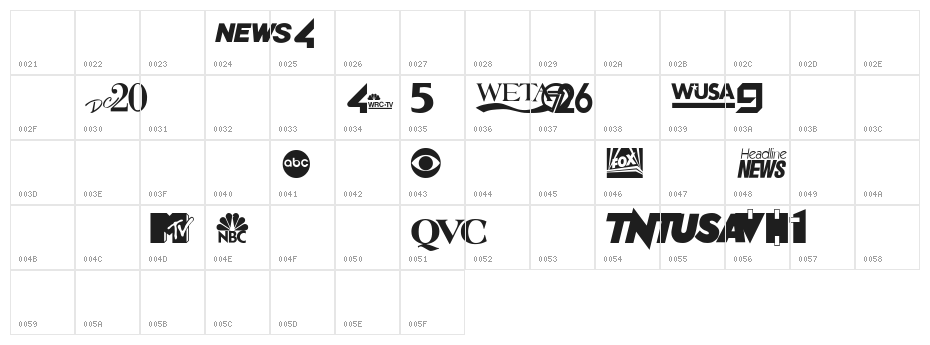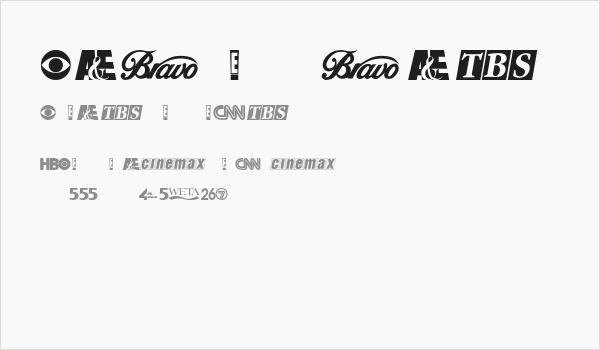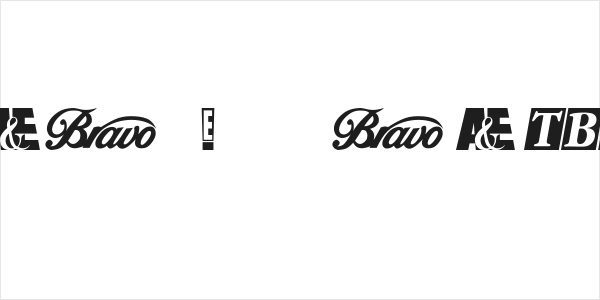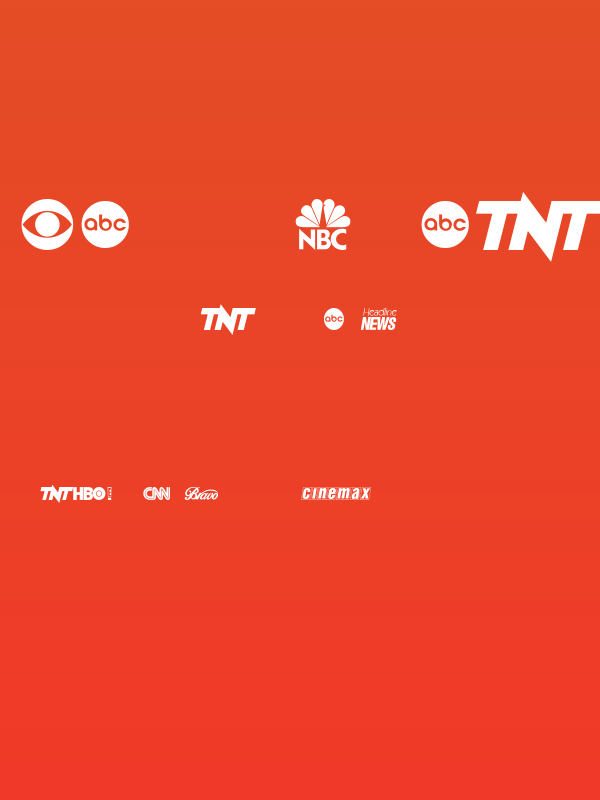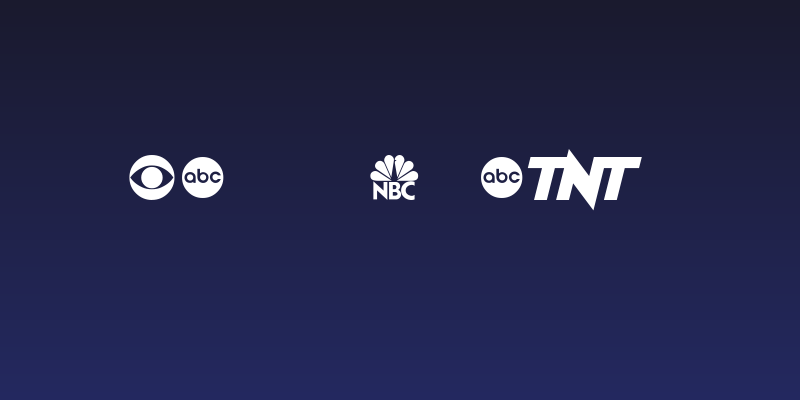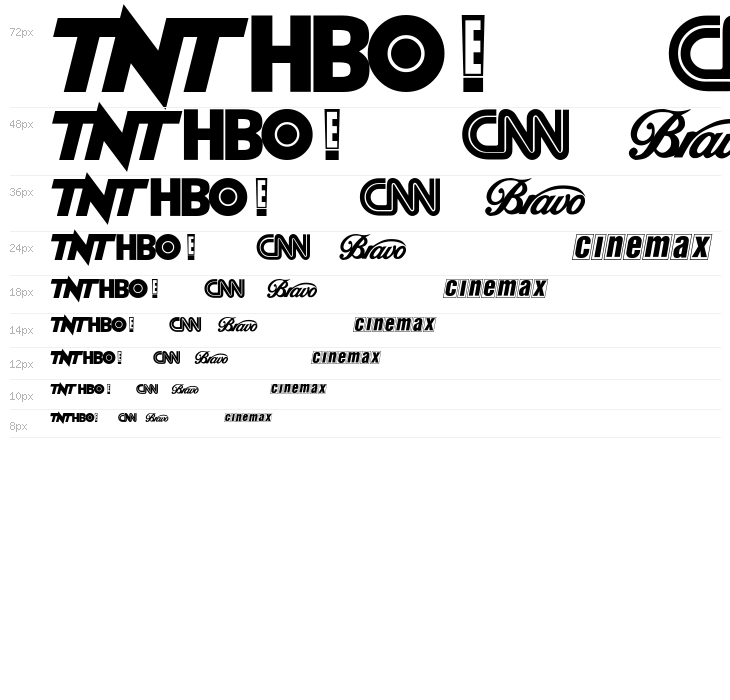
CableDingbats Font
CableDingbats Description
A collection of bold, geometric, and highly stylized letterforms and logos inspired by classic American cable television network branding. The designs include a mix of sans-serif, serif, and decorative elements, with some characters enclosed in shapes or featuring unique ligatures and customizations. The overall look is varied, with some logos using italicized or slanted text, while others are upright and blocky, reflecting the diversity of TV network identities.
| Overall Style | Decorative, Retro, Modern |
| Use Case | Logos, Headlines, Branding, Posters |
| Proposed Projects | Logo design, branding, retro posters, television-themed graphics, event promotions. |